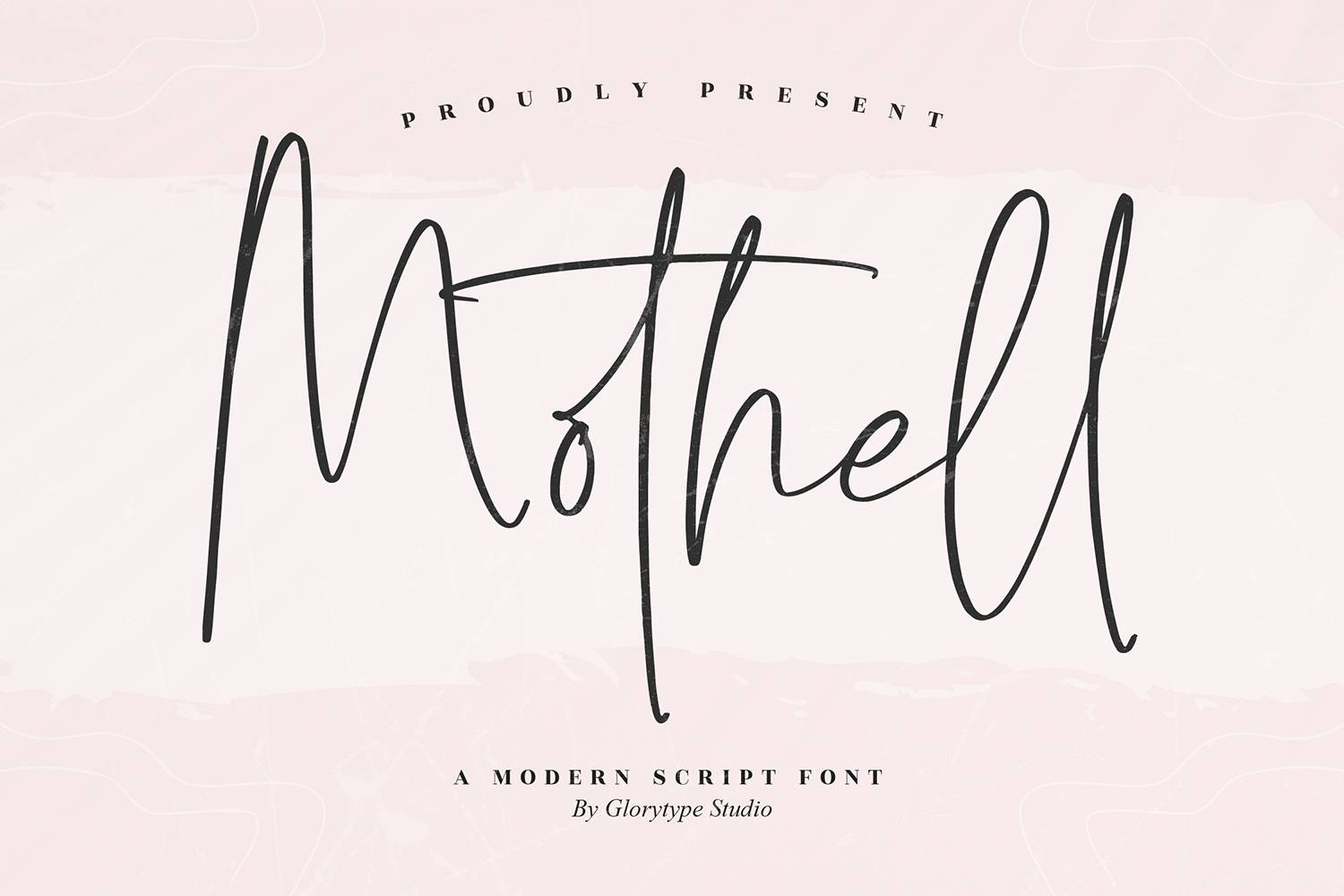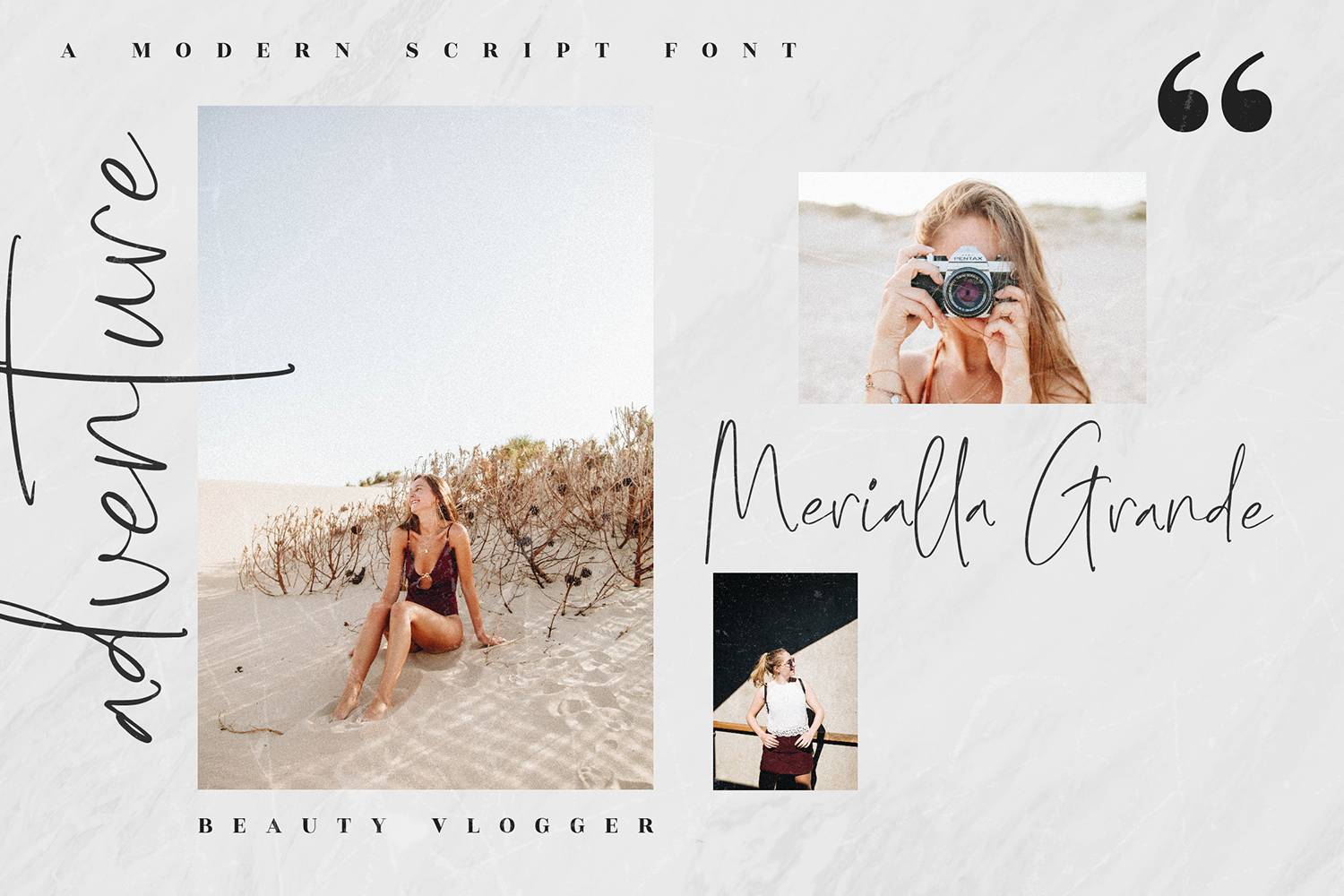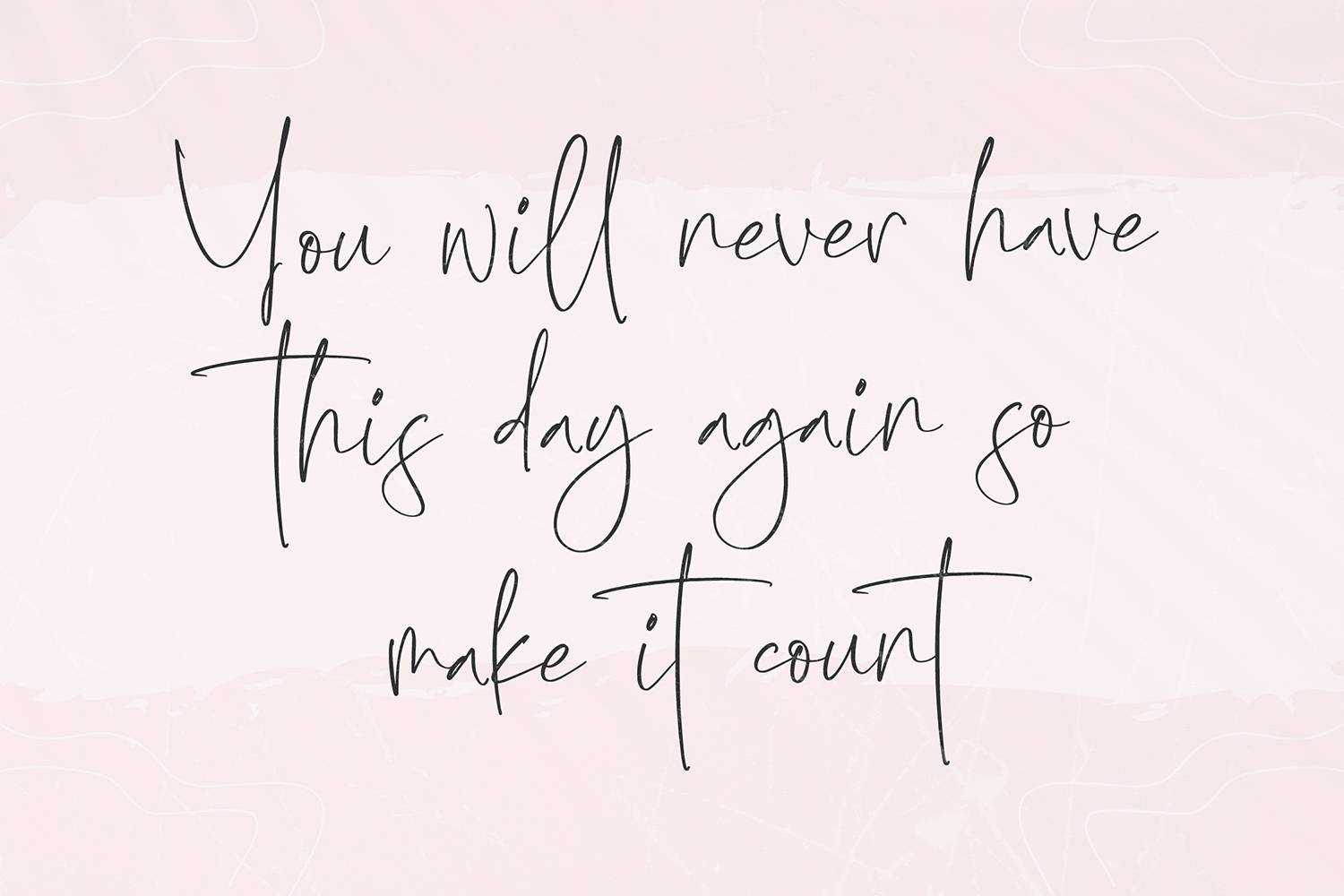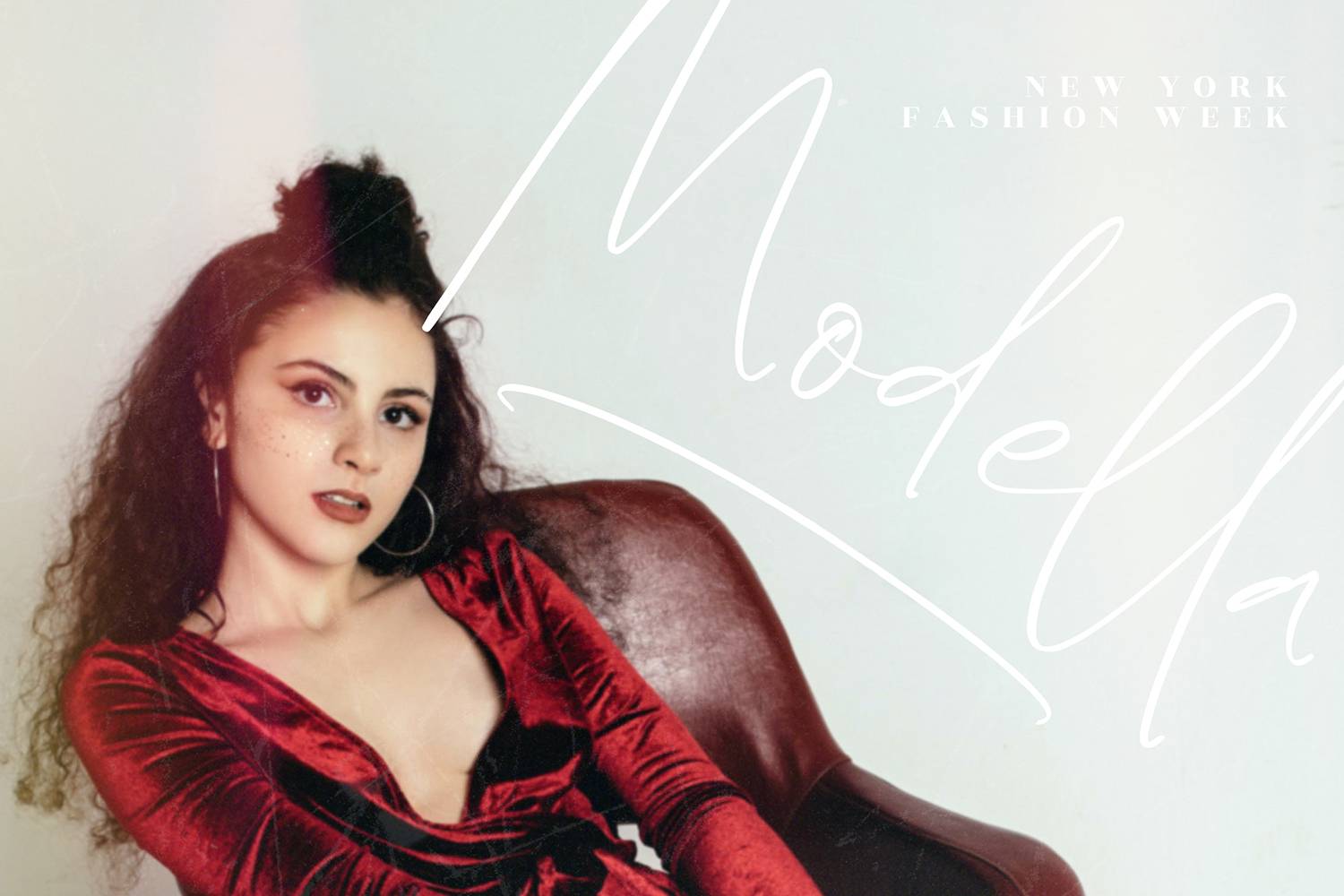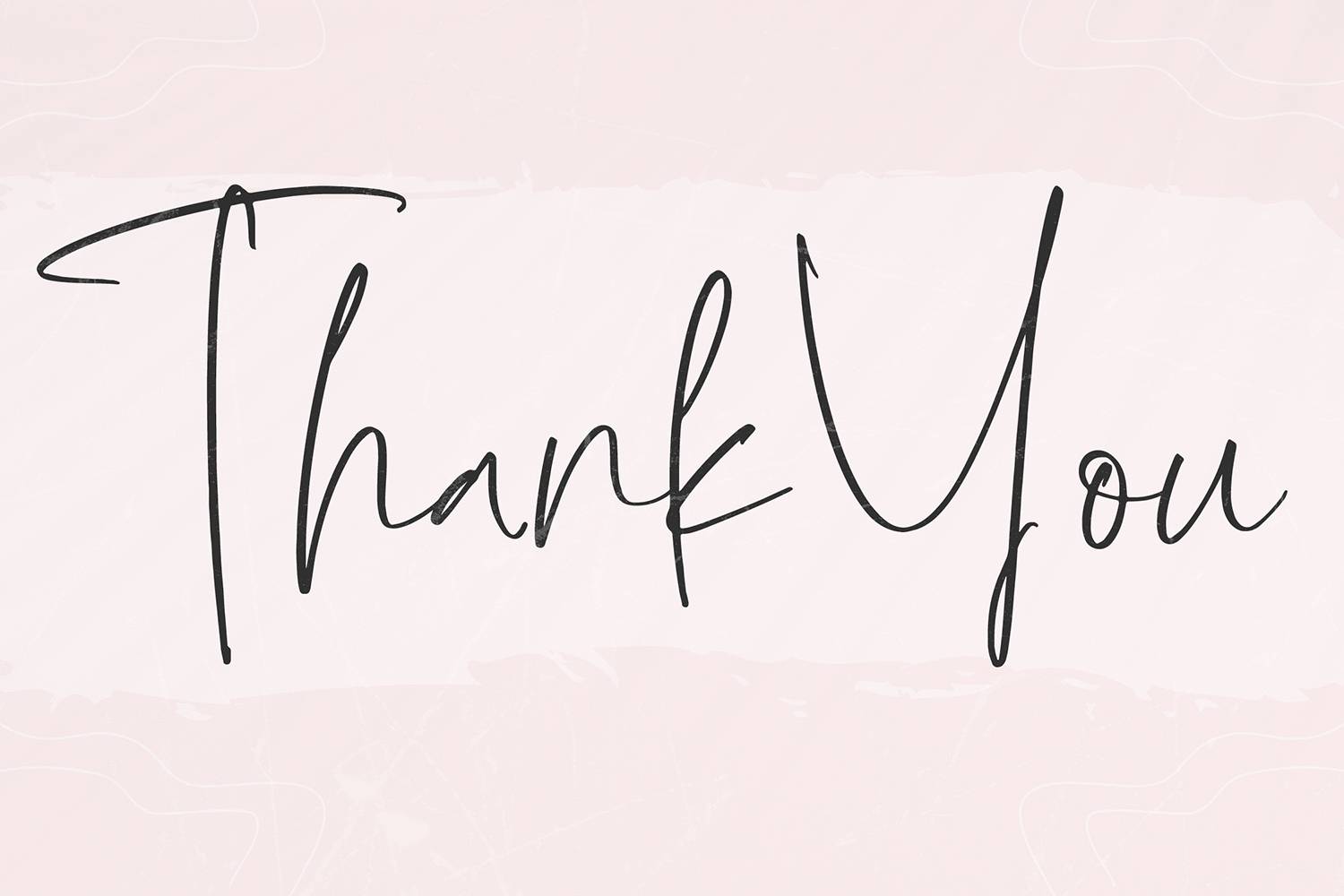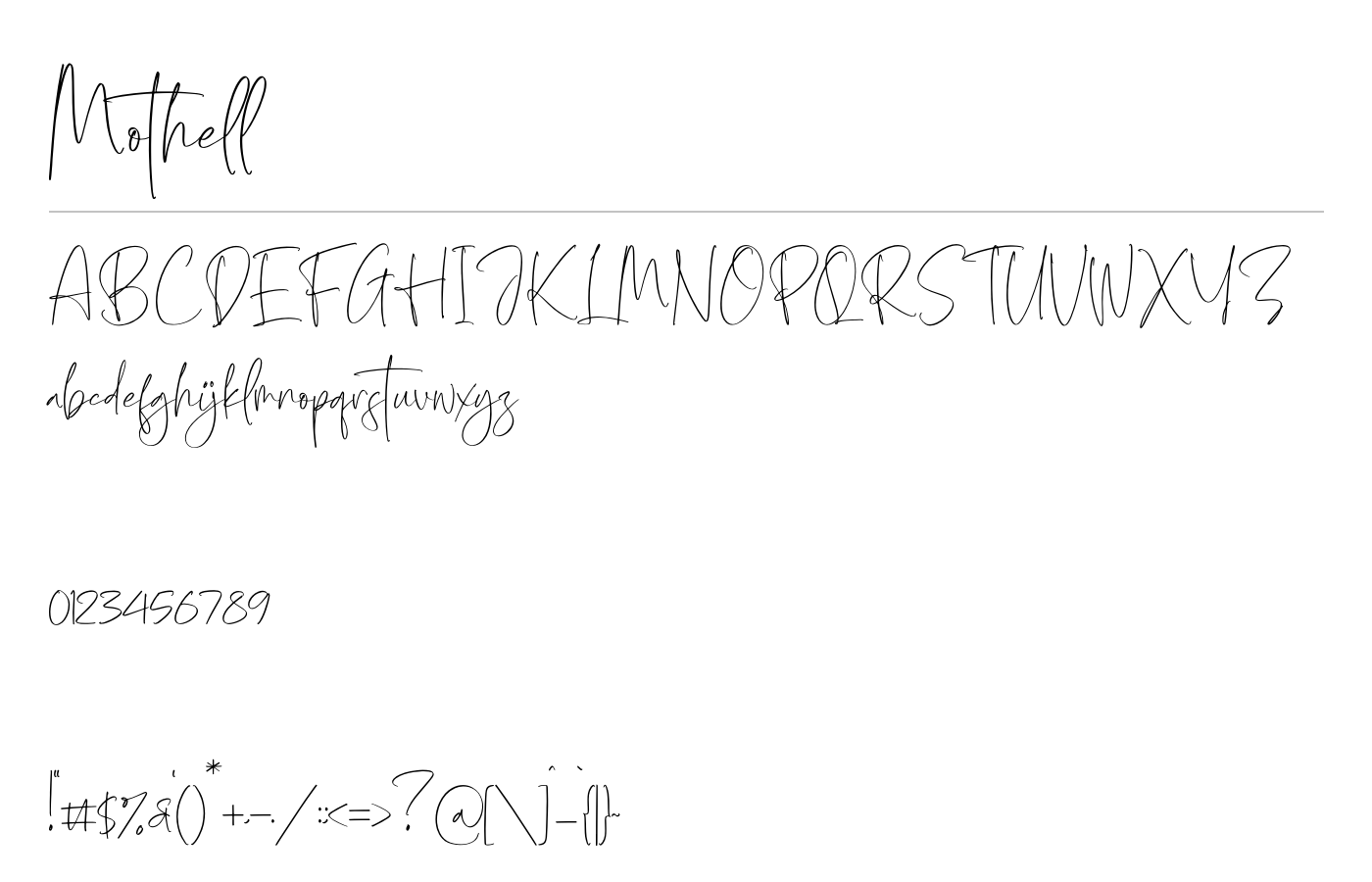
Mothell is a delicate, handwritten script font that features tall, slender letterforms with a playful, airy feel. Its thin, slightly uneven strokes give it a personal, casual elegance, making it ideal for creative branding, invitations, and stylish logos that require a touch of charm and individuality. This font works best in large sizes where its fine details can shine, adding a unique, approachable personality to designs.
Mothell Font
About Mothell Font